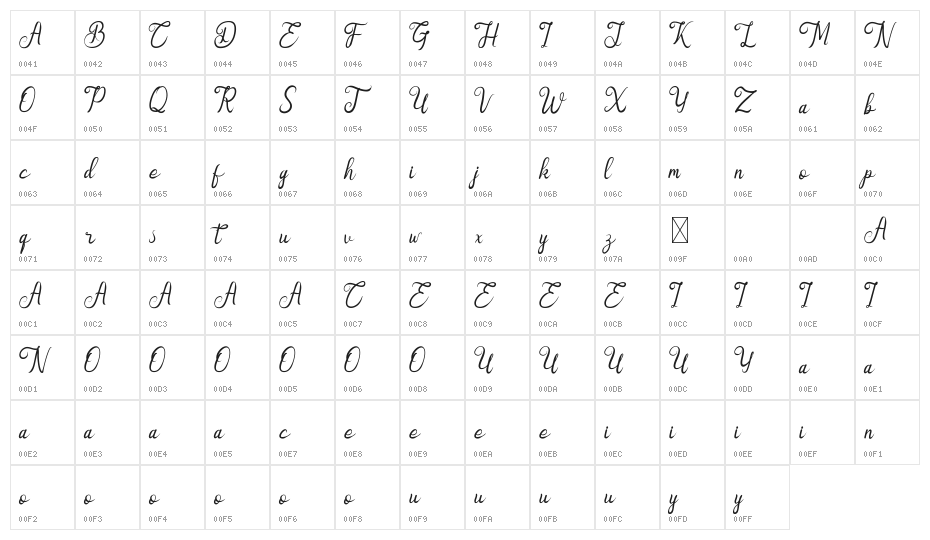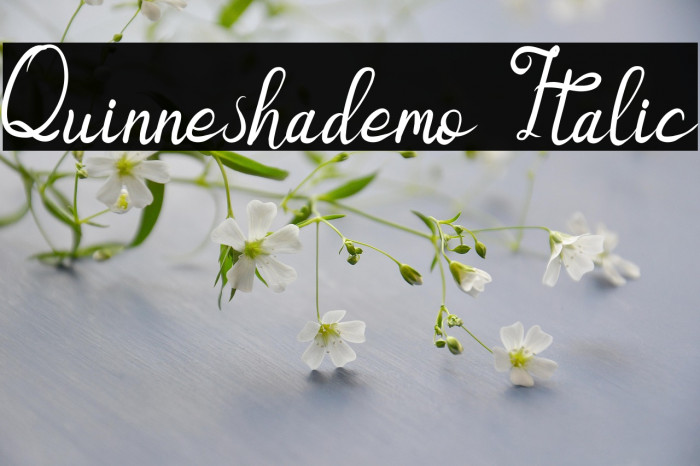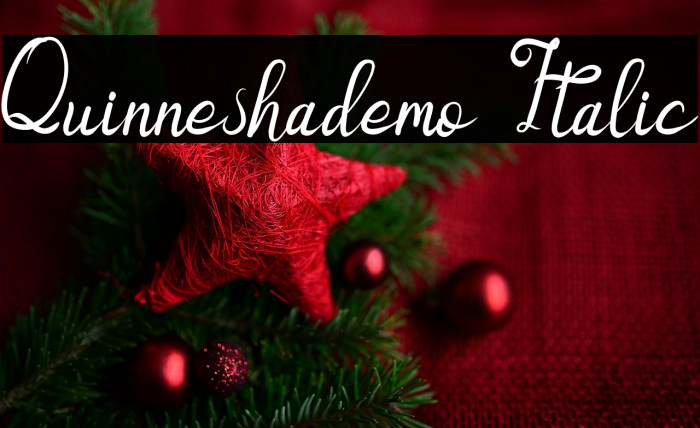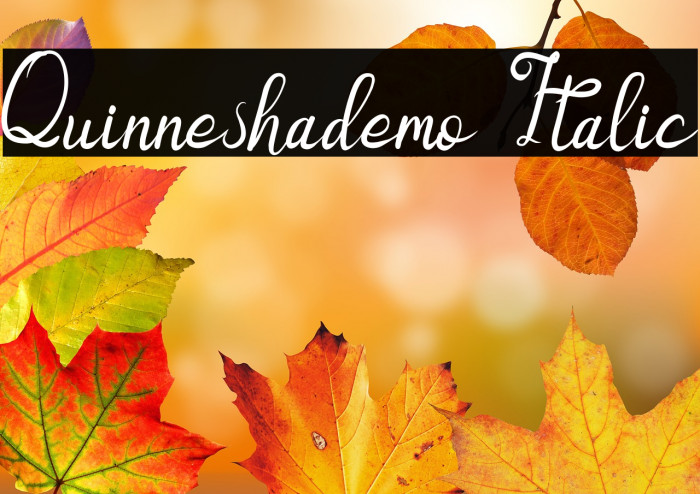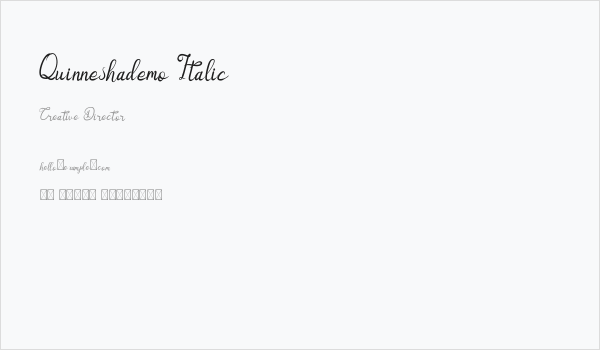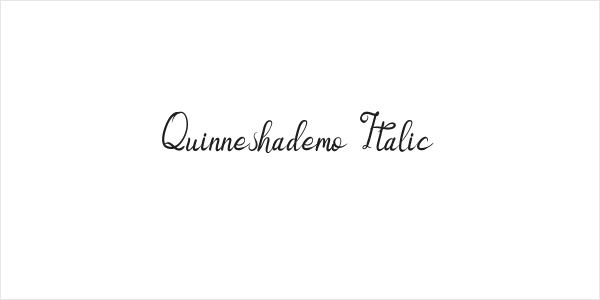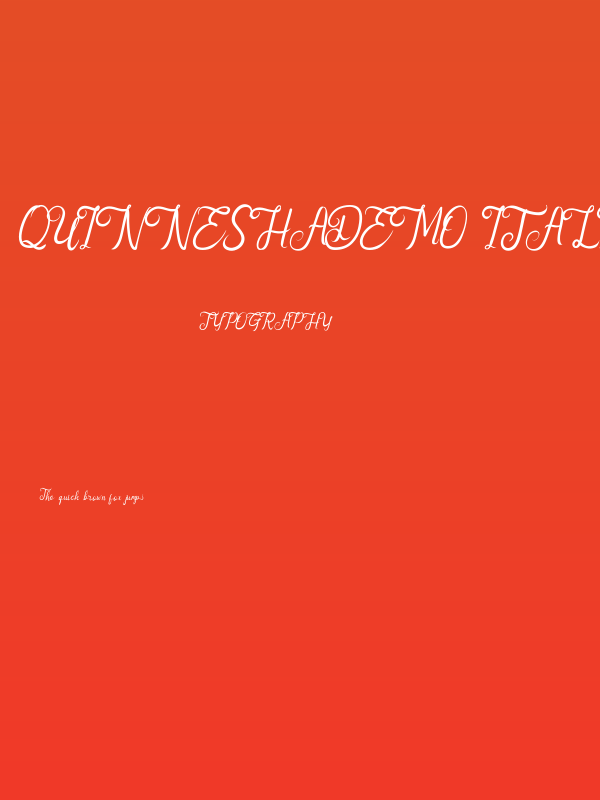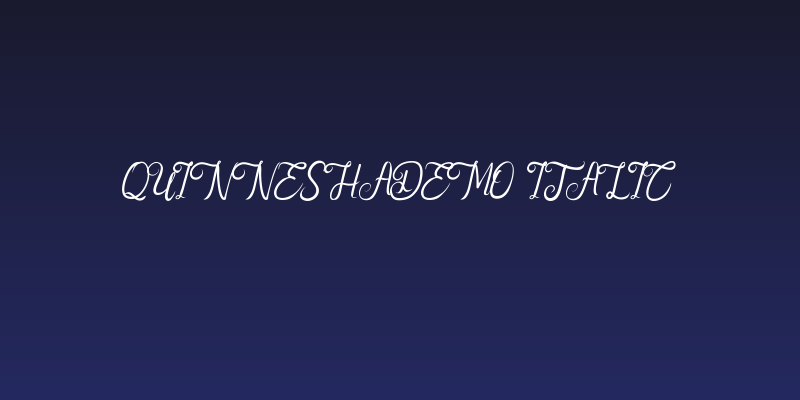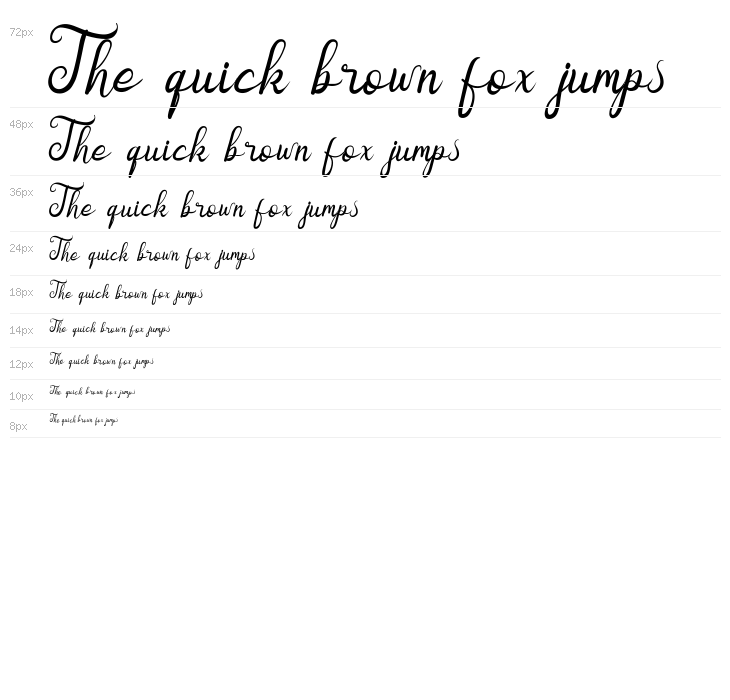
Quinneshademo Italic Font
Quinneshademo Italic Description
This elegant script font features flowing, cursive letterforms with a sophisticated and artistic flair. The characters are connected with smooth, sweeping strokes, creating a sense of fluidity and grace. The uppercase letters are ornate, with intricate loops and flourishes, while the lowercase letters maintain a consistent style with slightly less embellishment. The font's italic nature enhances its dynamic appearance, making it ideal for projects that require a touch of elegance and creativity. The overall design is balanced, with moderate character spacing that ensures readability while maintaining its decorative appeal.
Overall StyleElegant, Decorative
Use CaseLogos, Invitations, Decorative text
Proposed ProjectsIdeal for wedding invitations, greeting cards, branding, and elegant logo designs.